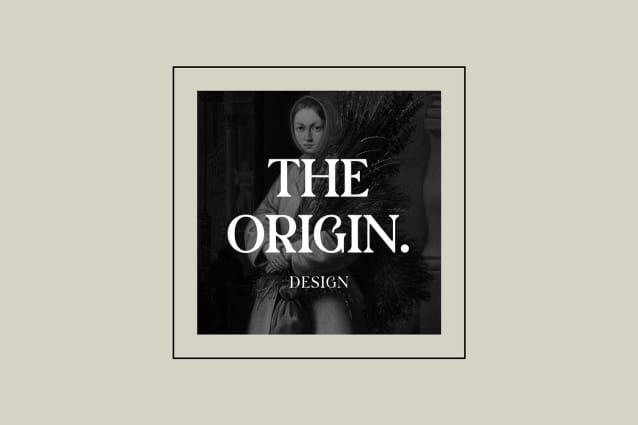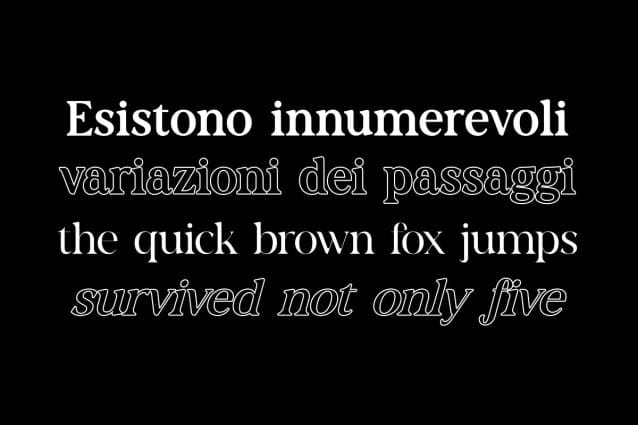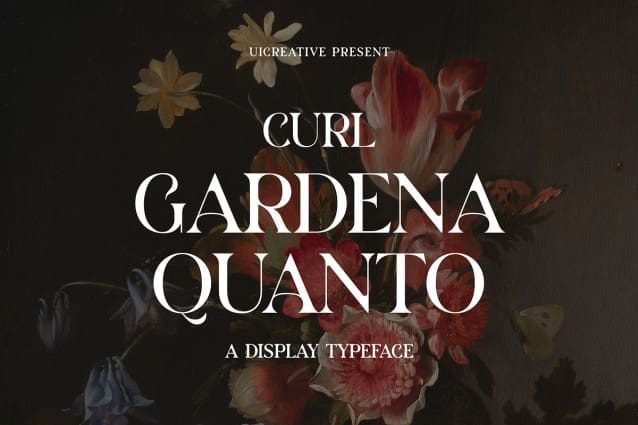
Gardena Quanto Font
Gardena Quanto Serif Display Font Family comes with 9 different weights. Modern Serif font that feels beautiful classy, elegant, and modern. This font is perfectly suited for a wide variety of projects, such as signature, stationery, logo, wedding, typography quotes, magazine or book cover, website header, clothing, branding, packaging design, and more. Also for fashion-related branding or editorial design and displays both masculine and feminine qualities.
Gardena Quanto Serif Display Font Family is a general-purpose, utilitarian design incorporating an abundance of OpenType features: small caps, ordinals, numerous figure options plus a few bonus goodies. Supports 66 languages using extended Latin character sets.